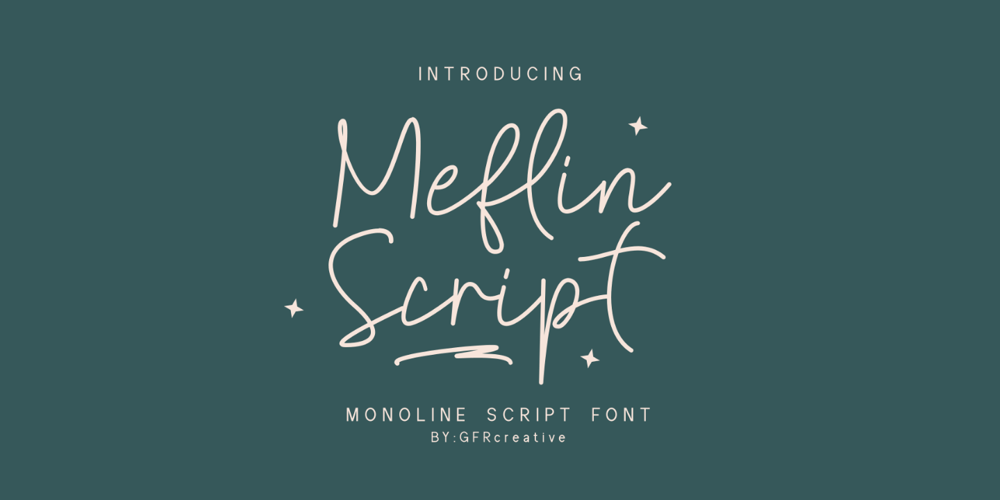
Meflin Script
Meflin Script font
Meflin Script Font Family was designed by Abdul Ghofur and published by GFR Creative. Meflin Script contains 1 styles and family package options. Meflin Script monoline script font I hope this font is interesting to use in your design projects.Thank youGFRcreative